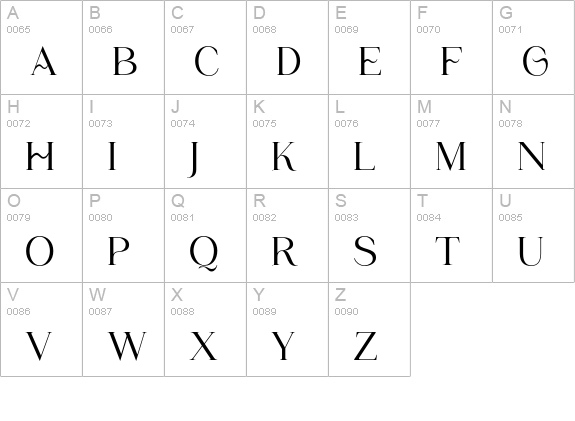
Glastone Font Details
Glastone is a demo font in the Fancy > Feminine category, designed by craftsupplyco. It has been downloaded 120 times and is available for Windows, Mac and Linux.
Glastone font is a versatile and elegant typeface that exudes sophistication and charm. Its sleek lines and modern design make it perfect for a wide range of design projects, from branding to invitations to packaging. The font features a unique blend of classic and contemporary elements, giving it a timeless appeal that is sure to make your text stand out.